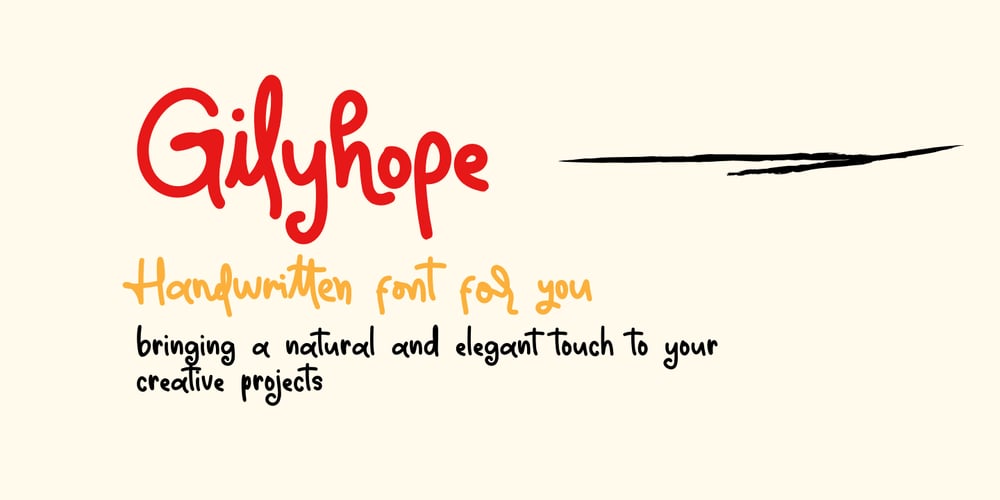
Gilyhope Font Family was designed by Dian Haniffan Hadi and published by Beary. Gilyhope contains 1 styles and family package options. Gilyhope is a naturally styled handwritten font with effortless charm and authenticity. Its organic strokes and abundant ligatures create a seamless flow, making your text look beautifully handcrafted and dynamic.Ideal for a variety of creative projects, Gilyhope brings a natural and personal touch to invitations, logos, social media graphics, branding, and more. Whether you’re designing for casual or elegant themes, this font adapts perfectly to your needs.Embrace the organic beauty of Gilyhope and add a touch of warmth and artistry to your designs. Thank you for choosing our font, and happy creating!